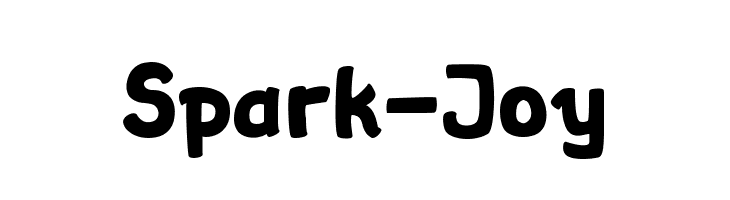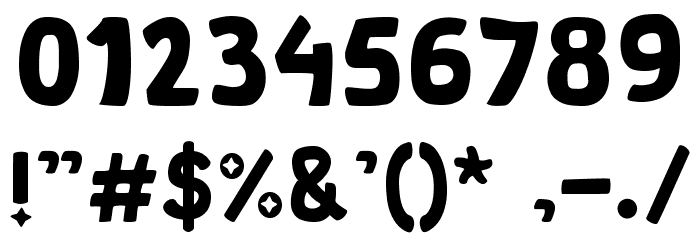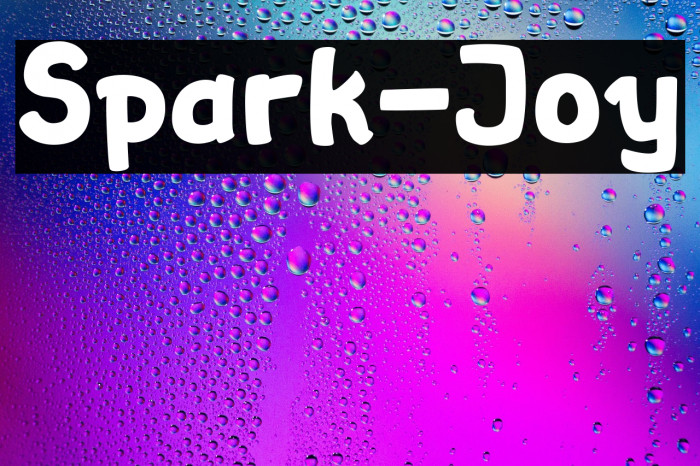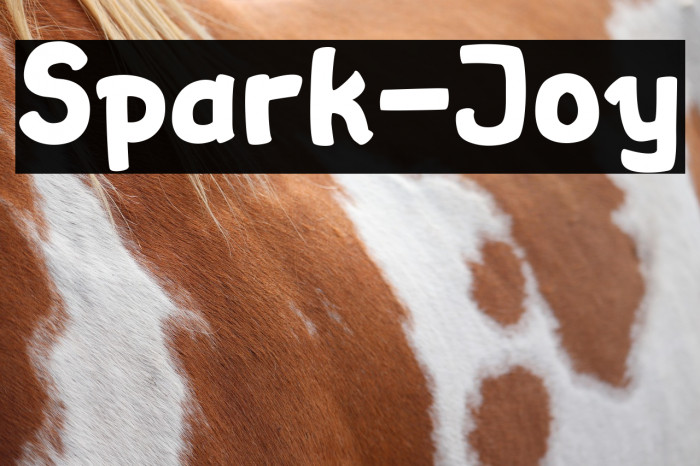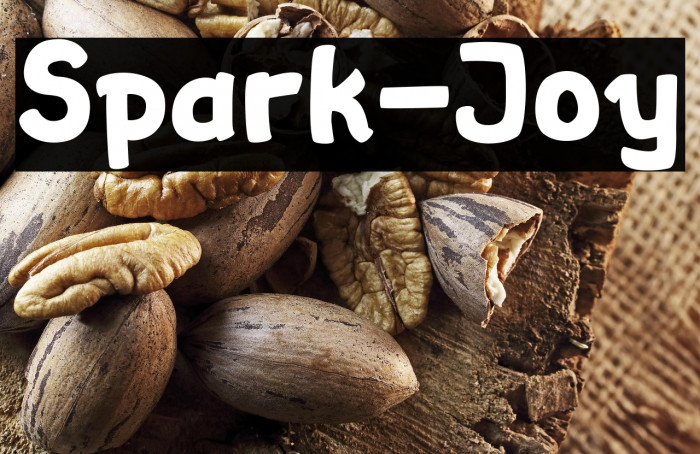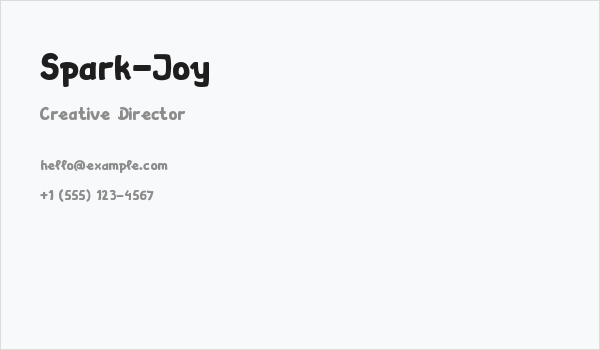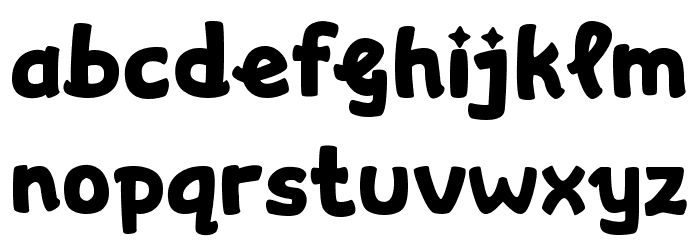
Spark-Joy Font
Spark-Joy Description
This playful and whimsical font features bold, rounded characters with a friendly and inviting appearance. The letters are slightly irregular, giving them a hand-drawn feel that adds a touch of personality and charm. The uppercase and lowercase letters maintain a consistent style, with the lowercase letters exhibiting a slightly more playful curvature. The numbers are bold and easy to read, matching the overall style of the alphabet. Special characters are included, maintaining the same playful and bold aesthetic. This font is perfect for projects that require a fun and approachable look, such as children's books, playful branding, or casual invitations.
| Proposed Projects | Ideal for children's books, playful branding, casual invitations, and fun posters. |